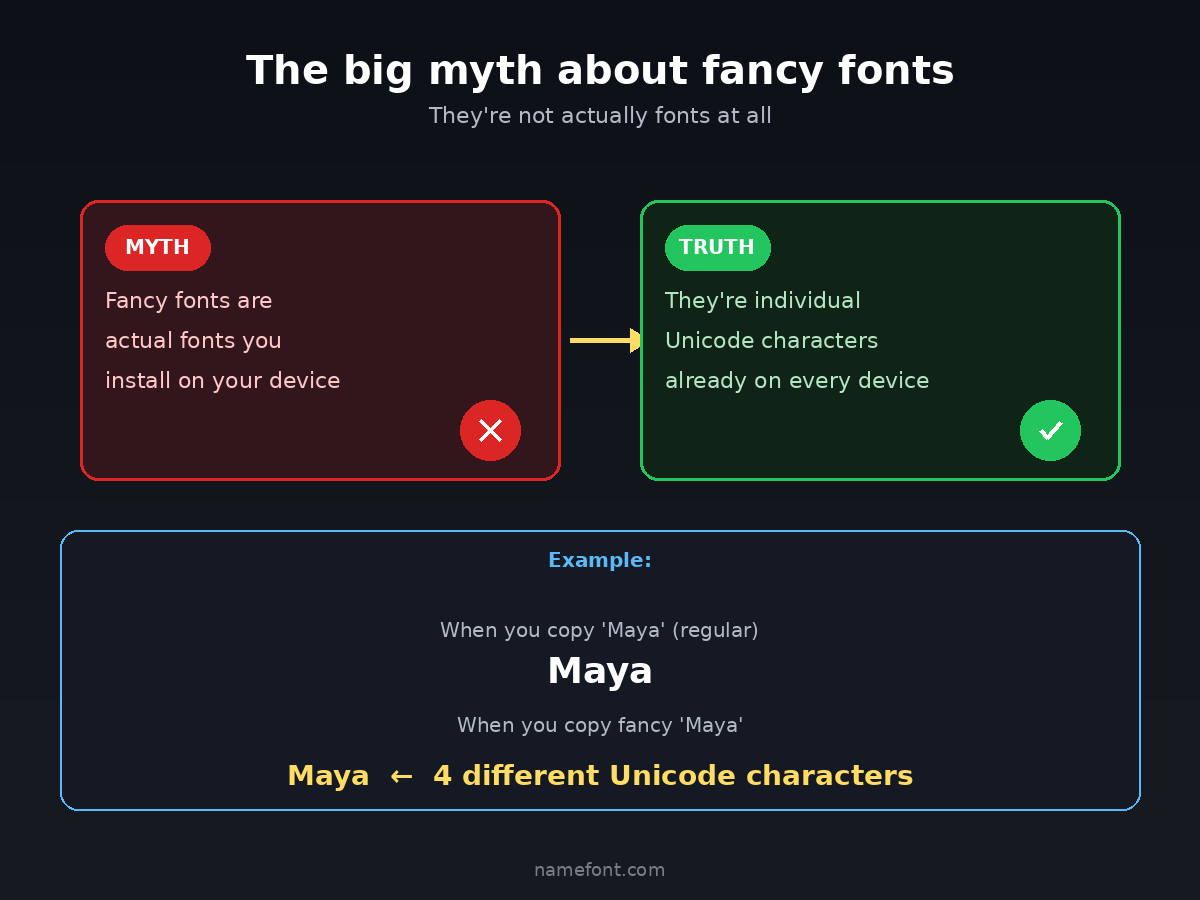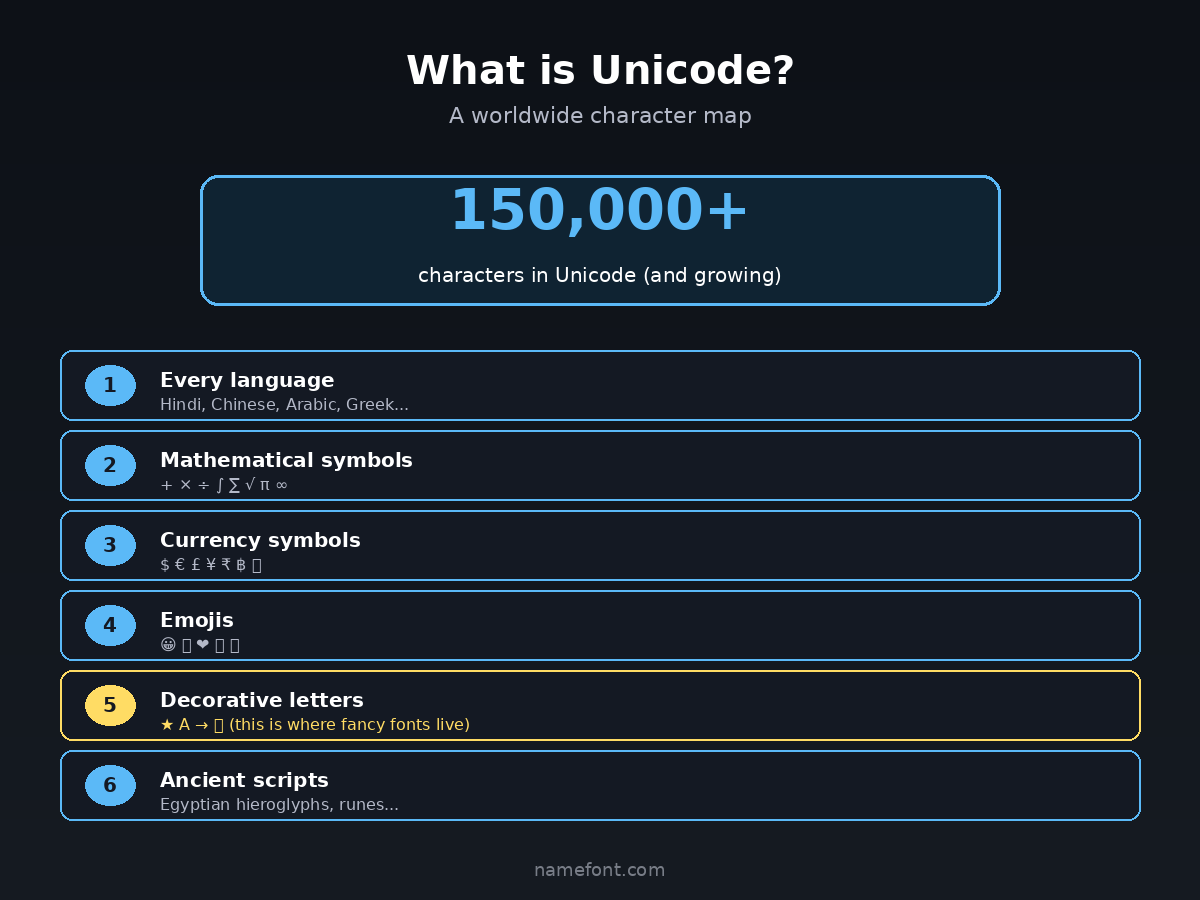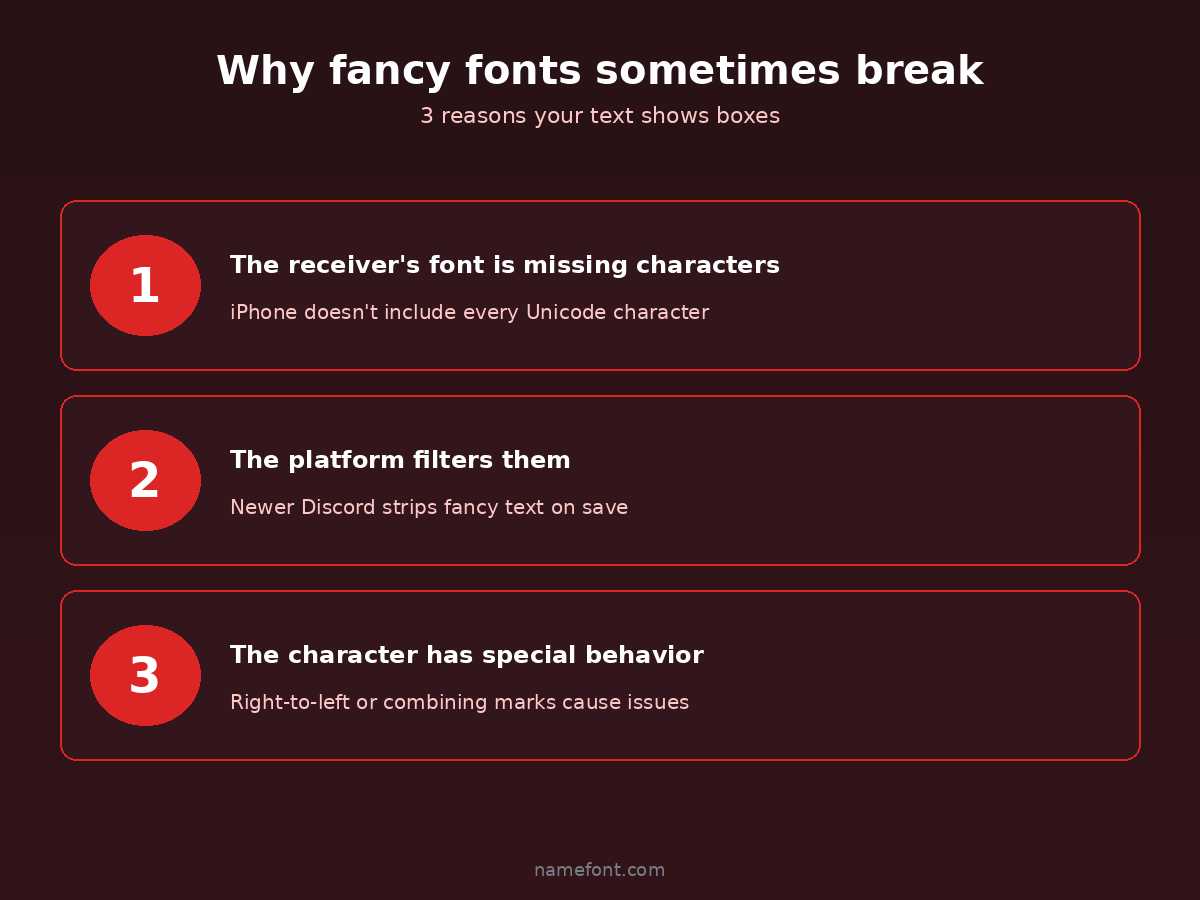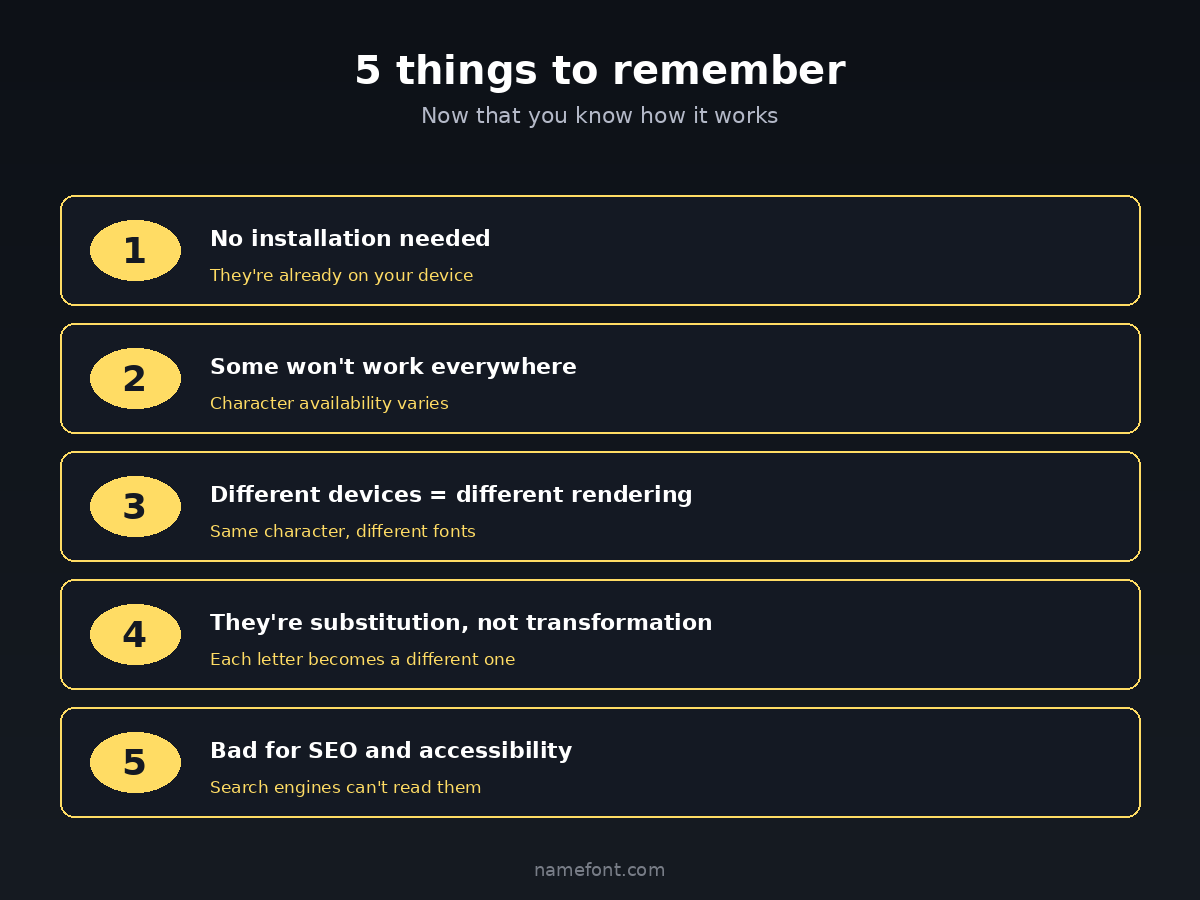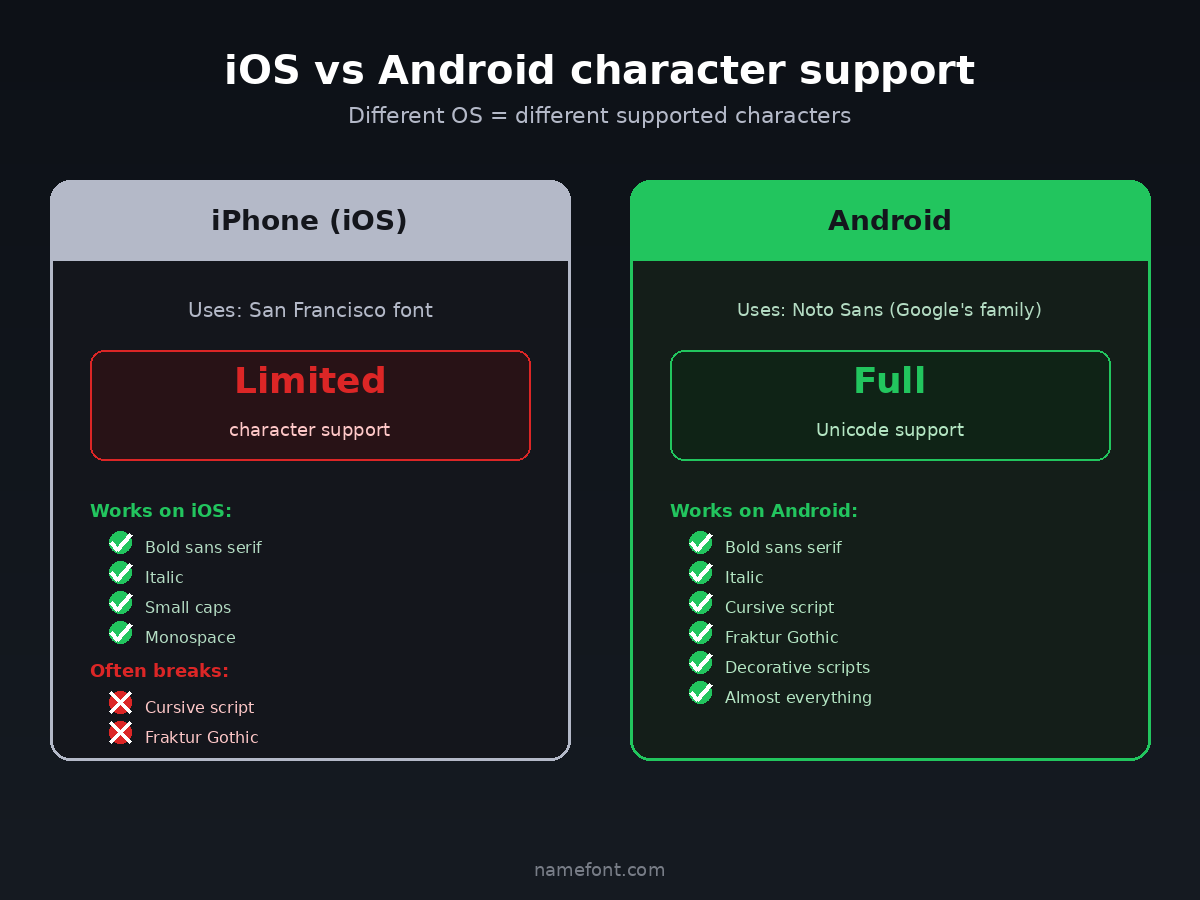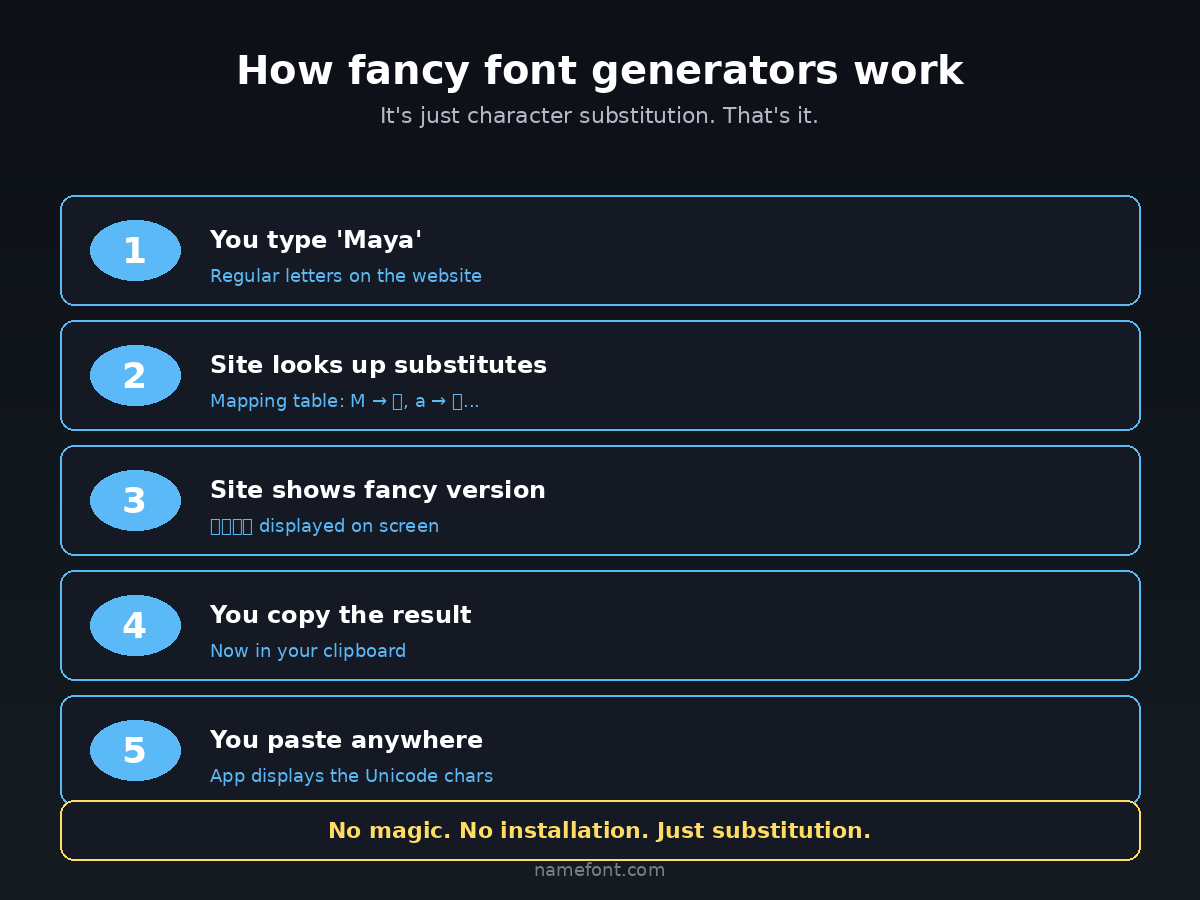
If you've ever copied a fancy font from a website like 𝓜𝓪𝔂𝓪 or 𝙑𝙚𝙭, you've probably wondered something. How does this work?
You didn't install a font. You didn't change any settings. You just copied some weird-looking text and pasted it. Somehow it shows up styled on Instagram, WhatsApp, in your gaming name. Sometimes it works. Sometimes it shows boxes. Sometimes only half the characters show.
After explaining this to friends way too many times, I figured I should just write it out properly. Here's exactly how stylish fonts work, why they sometimes break, and what's actually happening when you paste fancy text.
No technical degree required. Just plain English.
The big secret: they're not fonts
This is the most important thing to understand. Those "fancy fonts" you see on namefont.com or any similar site? They're NOT fonts.
They're individual Unicode characters that just happen to look like styled letters.
Here's what I mean. When you paste "𝓜𝓪𝔂𝓪", you're not pasting "Maya in cursive font." You're pasting four specific Unicode characters that look like a cursive M, a, y, and a.
These characters exist as their own thing. They're permanent residents of the Unicode character set. Just like the letter "A" is a character, "𝗔" (bold A) is also a character. They're different characters that happen to look similar.
This is why you don't install anything. The characters already exist on every device. Your phone just needs to be able to display them.
What is Unicode anyway
Quick crash course. Unicode is basically a giant list of every character ever invented. Every letter, every symbol, every emoji. Each one has a unique number called a "code point."
The letter "A" has code point 65. The letter "B" has 66. Your phone keyboard mostly types characters from the first 128 numbers (basic English letters, numbers, punctuation).
But Unicode goes WAY further than that. There are over 150,000 characters in Unicode now. Including:
Every letter from every language (Hindi, Chinese, Arabic, Greek, Russian, etc.)
Mathematical symbols
Currency symbols
Emojis
Decorative versions of letters (this is where fancy fonts live)
Ancient scripts that almost nobody uses anymore
When the internet was being built, the people in charge realized they needed a system where every character had its own permanent number. That way, when you type "A" on your phone in India and someone reads it on their computer in Brazil, both devices know what to show.
That's Unicode. A worldwide character map.
Where the "fonts" come from
Around 2010-2015, the Unicode committee added something called "Mathematical Alphanumeric Symbols." These were added so mathematicians could write equations using bold and italic letters distinctly.
There's:
𝐀 (Mathematical Bold A)
𝐴 (Mathematical Italic A)
𝑨 (Mathematical Bold Italic A)
𝓐 (Mathematical Bold Script A)
𝔄 (Mathematical Fraktur A)
𝙰 (Mathematical Monospace A)
And about 8 more variants. These were meant for math papers.
But the internet found them. People realized you could use these "math letters" anywhere — on Instagram bios, gaming names, WhatsApp status. Suddenly, every website that gives you "fancy fonts" is just mapping regular letters to these mathematical Unicode characters.
That's literally the whole magic. It's just substitution.
How fancy font generators actually work
When you go to a site like namefont.com and type "Maya":
Step 1: The website takes your input "Maya" (regular letters)
Step 2: It has a list mapping each regular letter to its fancy variant:
M → 𝓜
a → 𝓪
y → 𝔂
a → 𝓪
Step 3: It shows you the substituted version: "𝓜𝓪𝔂𝓪"
Step 4: You copy and paste it
Step 5: Your phone reads those Unicode characters and tries to display them using whatever font is installed
That's it. There's no AI. No magic. No font changing happening on your phone. Just character substitution.
Why it works on Instagram, WhatsApp, gaming
This is the cool part. None of these apps "support fancy fonts." They just display Unicode characters using their default font.
When Instagram sees "𝓜𝓪𝓎𝓪", it doesn't know it's "Maya in cursive." It just sees four Unicode characters and asks the device's font to draw them.
If the device's font knows how to draw 𝓜 (which most do), it shows the cursive M. If the device's font doesn't know that character, it shows a box.
Apps don't filter or block fancy fonts most of the time because to the app, they're just regular text. The app can't tell the difference between "𝓜𝓪𝔂𝓪" and "Maya" — they're both just strings of characters.
Why fancy fonts sometimes break
Now you understand why fancy fonts sometimes don't work. There are three main reasons:
1. The receiver's font doesn't include those characters
iPhone's San Francisco font, for example, doesn't include every single Unicode character. So if you paste a font using characters Apple didn't include, iPhone shows boxes.
That's the whole secret.
Now you know how it actually works. You just look like you're casting magic spells.